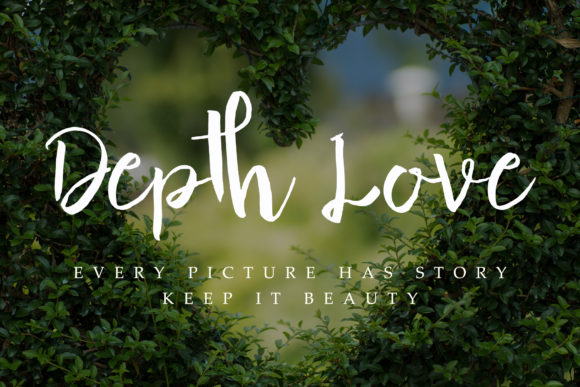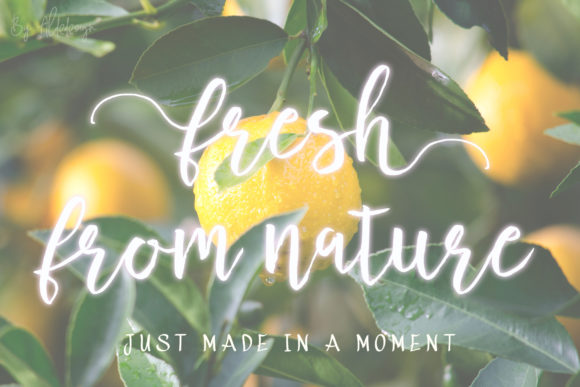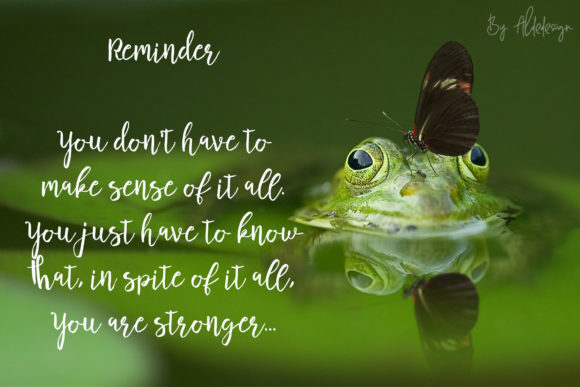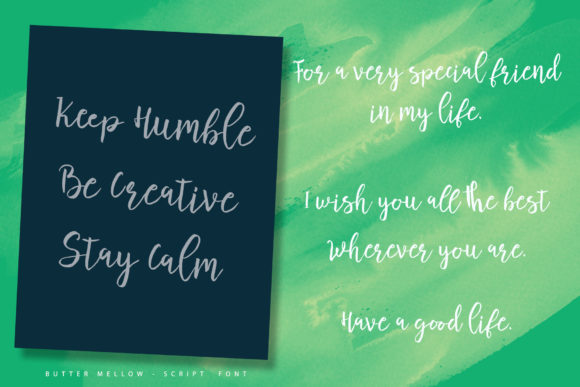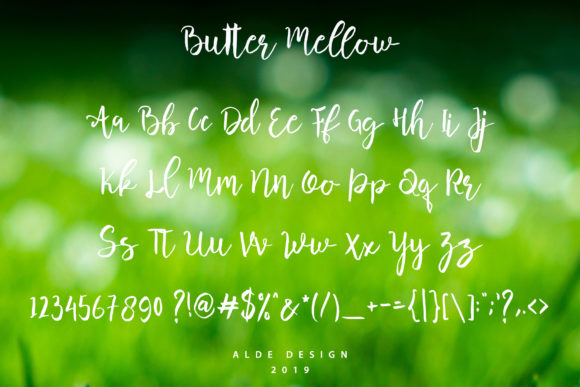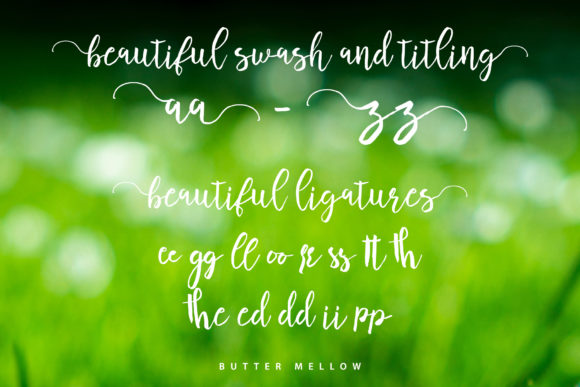
HomeScript FontsButter Mellow Font Script Fonts Butter Mellow Font FacebookXPinterestWhatsApp Butter Mellow Font Poster 2 Butter Mellow Font Poster 3 Butter Mellow Font Poster 4 Butter Mellow Font Poster 5 Butter Mellow Font Poster 6 Butter Mellow Font Poster 7 About Butter Mellow Font Butter Mellow is a simple, yet beautiful handwritten font with a unique vibe. Get inspired by its light feel! DOWNLOAD NOW People also explored Kolete Font Whenworth Font Palmegria Font Boston Bruins Font Alima Font Menta Font Gracilea Script Font Floral Bloom Font Handaru Font 336 0 TagsButter Mellow Font Previous articleAmanda FontNext articleAnggelica Merona Font LEAVE A REPLY Cancel reply Comment: Please enter your comment! Name:* Please enter your name here Email:* You have entered an incorrect email address! Please enter your email address here Website: Save my name, email, and website in this browser for the next time I comment. Personal Use Free Sui Genesis Personal Use Free Read more about this font Happy Santa Personal Use Free Read more about this font Rare Knuckle Personal Use Free Read more about this font Setta Personal Use Free Read more about this font BLOG To increase your work productivity, choose the most readable fonts. In today's fast-paced work environment, where digital communication and information consumption are integral to our daily routines, the choice of fonts can significantly impact... Fonts That Capture the Spirit of New York City Transform Your Website: Elevate Your Typography with 7 Best Web Font Generators How to Install and Use Fonts on Windows, macOS, and Web Projects